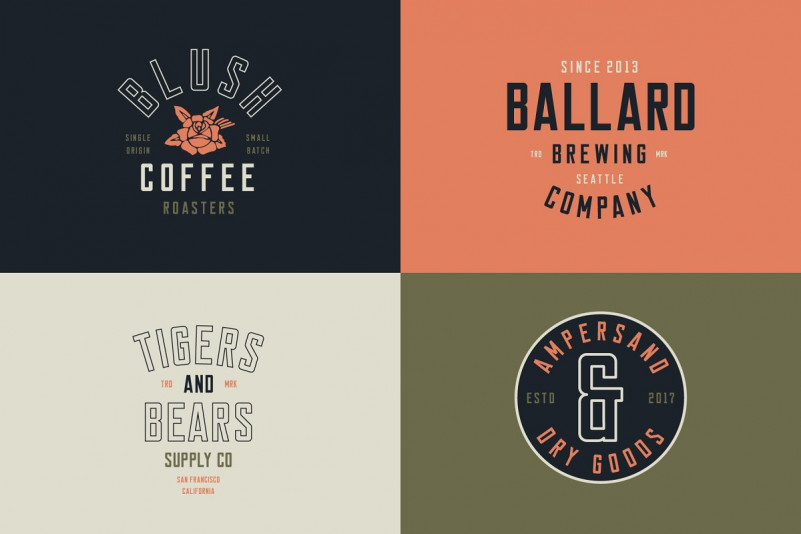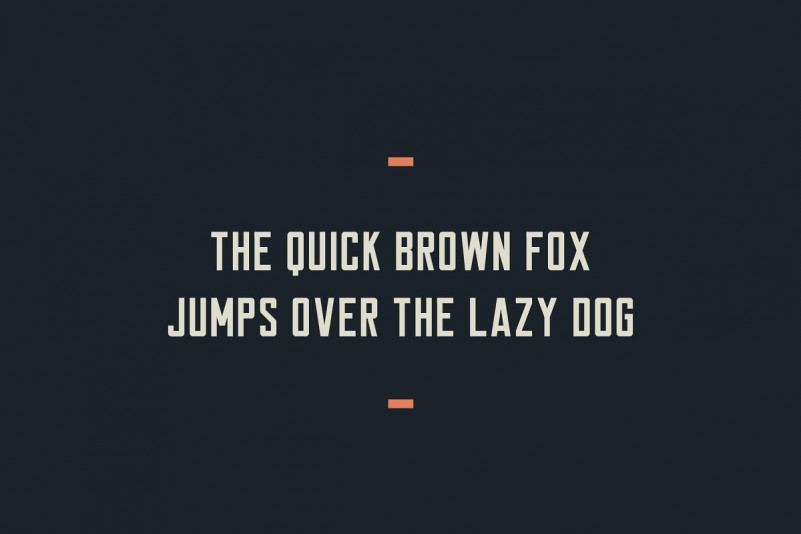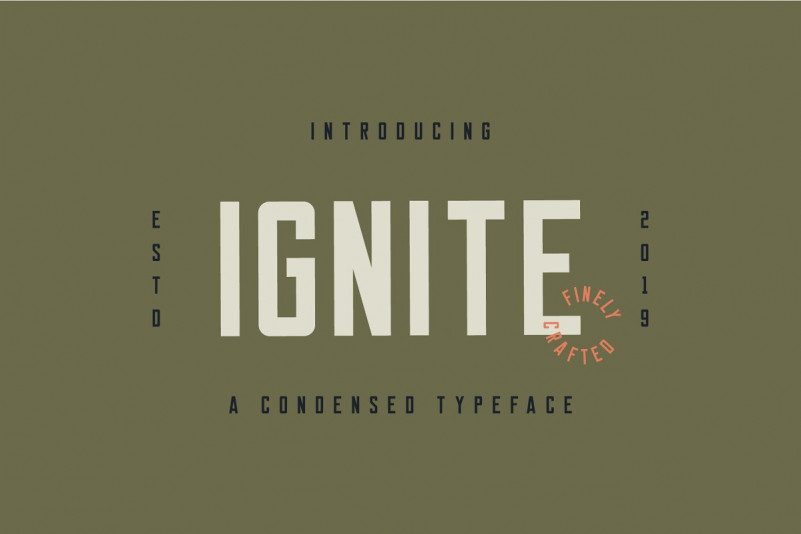
Ignite Sans Serif Font
Hello friend. Introducing Ignite Font. Ignite is a sans serif, condensed typeface inspired by vintage lettering textbooks. It works perfectly for achieving a modern and crafted aesthetic in your designs. Ignite is perfectly suited to branding, logos, magazines, films, website, headlines, titles, captions, games, apps, posters, t-shirts and more.